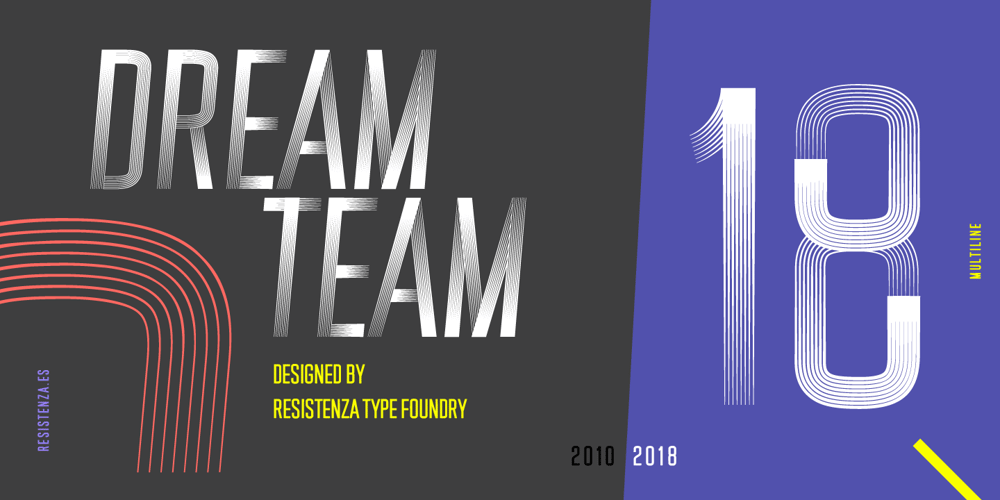
DreamTeam Font Family was designed by Giuseppe Salerno, Paco González and published by Resistenza. DreamTeam contains 4 styles and family package options. DreamTeam Font: A Contemporary Twist on Classic Sans SerifsDreamTeam font stands at the forefront of modern typography, blending the timeless elegance of narrow flat-sided sans serifs with a contemporary twist. Inspired by the rich tradition of sign painting, these letters breathe new life into the graphic design landscape with their unique multiline strokes.Born from the legacy of typography’s loveliest styles, DreamTeam font brings a fresh perspective to the table. Its modular letters boast long limbs, nimble movement, and shifting weight, reminiscent of the dynamic energy found in Afrobeat font. This multiline-display typeface is engineered to captivate attention, making it perfect for a wide range of applications, from striking signage to impactful print advertising and eye-catching editorial designs, including book covers.One of DreamTeam’s most striking features is its distinctive forms, which lend themselves seamlessly to branding applications. Whether it’s a sleek logo or a bold corporate identity, DreamTeam font adds a touch of sophistication and vitality to any brand.But the versatility of DreamTeam doesn’t stop there. With its directional movement and suggested speed, this font is tailor-made for athletic apparel and clothing lines. The four styles of DreamTeam offer endless possibilities for designers seeking to infuse their designs with a sense of movement and momentum, making it the ultimate solution for those looking to convey a dynamic and energetic vibe.More About Opentype Features: https://bit.ly/opentype-rsz